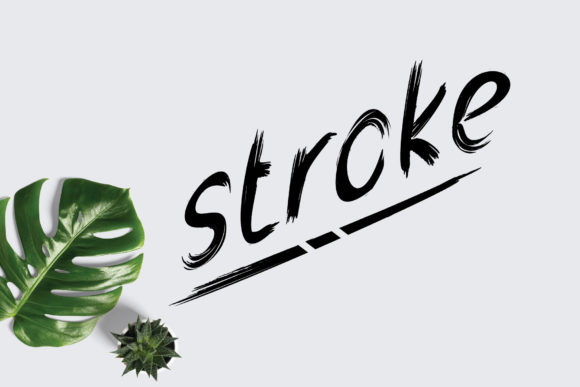
Stroke: A Bold Font for Creative Impact
What Is Stroke and Why It Matters
Stroke is a bold and thick lettered display font that commands attention with its strong visual presence. Designed to stand out, it’s not just about aesthetics—it’s about making a statement. Whether you're working on a digital project, print design, or branding, Stroke offers a powerful way to elevate your creative output.
This font is particularly well-suited for urban projects, where clarity and impact are essential. Its clean lines and consistent weight make it versatile enough to work across a wide range of applications. From logos and headlines to social media graphics and packaging, Stroke can adapt to fit your needs while maintaining its signature strength.
Creative Possibilities with Stroke
The beauty of Stroke lies in its ability to be reimagined. Here are some ways you can explore its potential:
- Branding Projects: Use Stroke for logo designs, taglines, or brand slogans to create a memorable visual identity.
- Social Media: Apply Stroke to headlines, captions, or overlays to catch the eye of your audience quickly.
- Print Design: Incorporate Stroke into posters, flyers, or brochures to add a dynamic feel to your layout.
- Web Content: Use Stroke for headers, call-to-action buttons, or key phrases to guide user attention effectively.
Each application allows for different interpretations. For instance, pairing Stroke with minimalist backgrounds can create a striking contrast, while using it on textured surfaces can add depth and character.
How to Adapt Stroke for Different Goals
Stroke is not one-size-fits-all. The way you use it depends on your goals, audience, and platform. Here’s how to tailor it effectively:
For Marketers
When targeting audiences through marketing campaigns, Stroke can help reinforce brand messaging. Use it for headlines in email newsletters, banners, or video intros to ensure your message cuts through the noise.
For Bloggers and Content Creators
Blogs and content platforms often require fonts that are both readable and visually engaging. Stroke works well as a headline font, especially when paired with simpler body text. This contrast helps readers focus on the most important parts of your content.
For Educators and Publishers
In educational materials or publications, Stroke can be used for chapter titles, section headers, or emphasis points. Its boldness ensures that key information stands out without overwhelming the reader.
Practical Tips for Using Stroke Effectively
To make the most of Stroke, consider these practical recommendations:
- Use it sparingly: While Stroke is powerful, overusing it can dilute its impact. Save it for headlines, logos, or key elements.
- Pair with complementary fonts: Balance Stroke with lighter, more readable fonts for body text to maintain legibility.
- Test on different devices: Ensure that Stroke looks good across all screen sizes and resolutions, especially if you're designing for web.
- Consider color contrast: Use high-contrast color combinations to enhance readability and visual appeal.
By following these guidelines, you can ensure that Stroke remains a clear and effective tool in your creative toolkit.
Realistic Examples and Inspiration
Let’s look at a few realistic examples to spark your creativity:
- Urban Street Art: Stroke could be used in graffiti-style tags or signage to make a bold statement in public spaces.
- Product Packaging: Applying Stroke to product names or labels can make your packaging more eye-catching and memorable.
- Event Invitations: Use Stroke for event titles or dates to create an instant visual impact.
- Online Courses: Incorporate Stroke into course titles or learning modules to emphasize key concepts.
These examples show how Stroke can be adapted to suit various contexts, from physical to digital, and from small-scale to large-scale projects.
Conclusion
Stroke is more than just a font—it's a tool for expression, communication, and creativity. By understanding its strengths and limitations, you can use it to enhance your projects in meaningful ways. Whether you're a designer, marketer, educator, or hobbyist, Stroke offers a unique opportunity to make your ideas stand out in a crowded world.